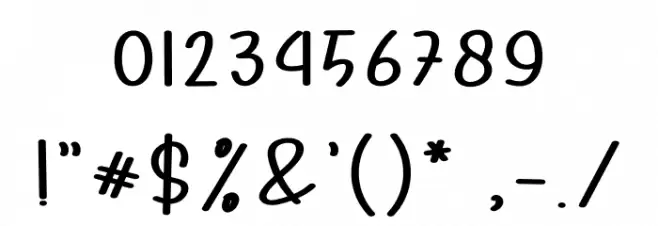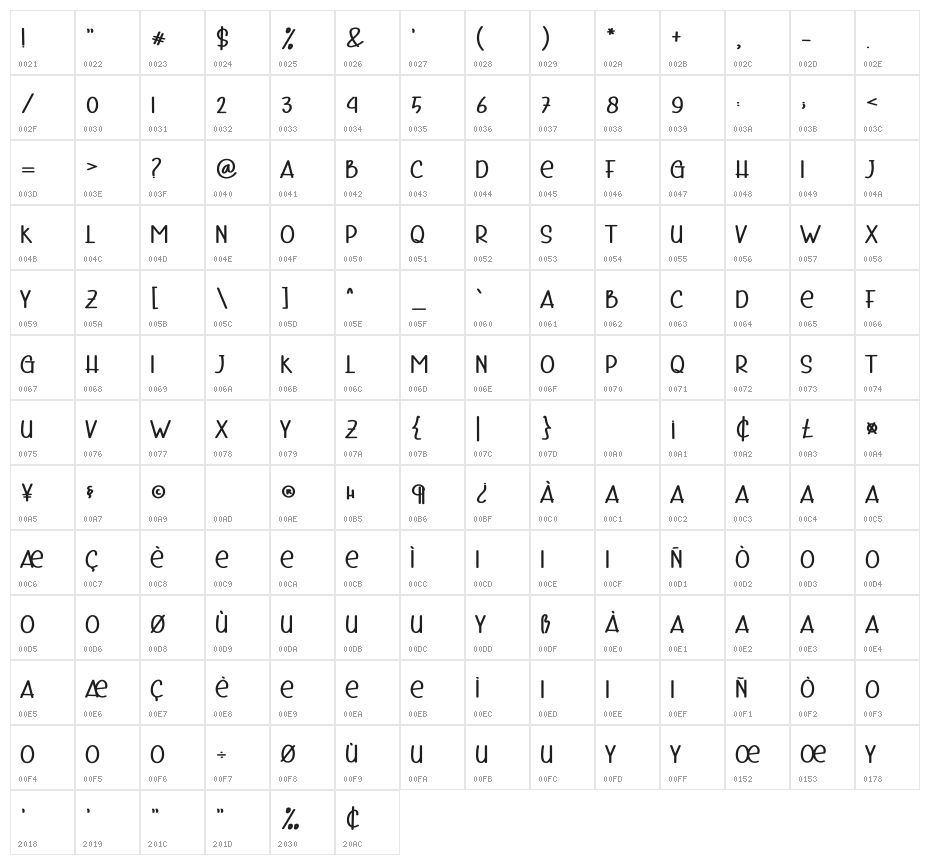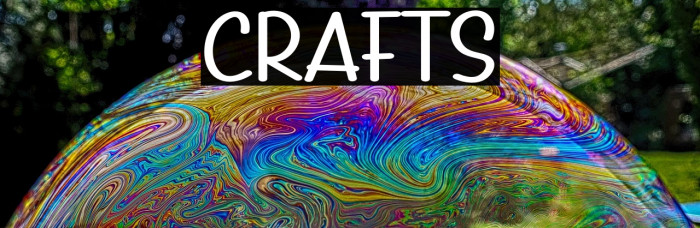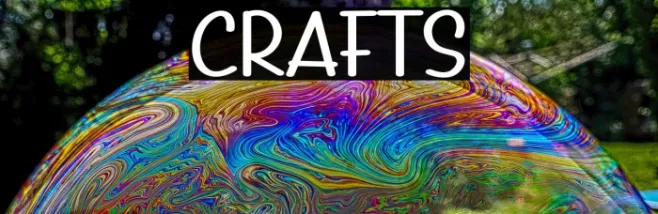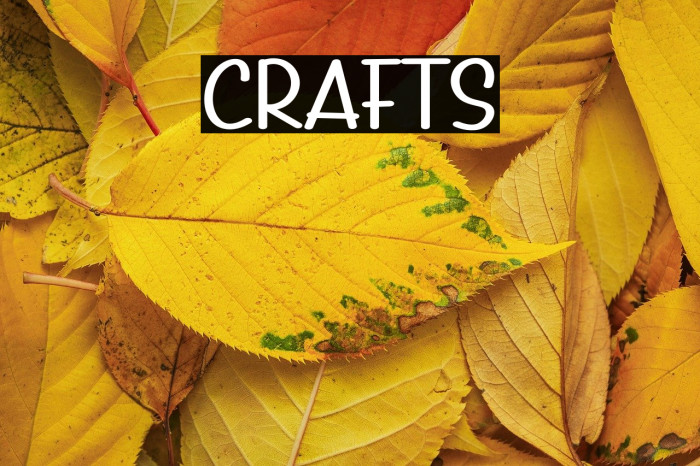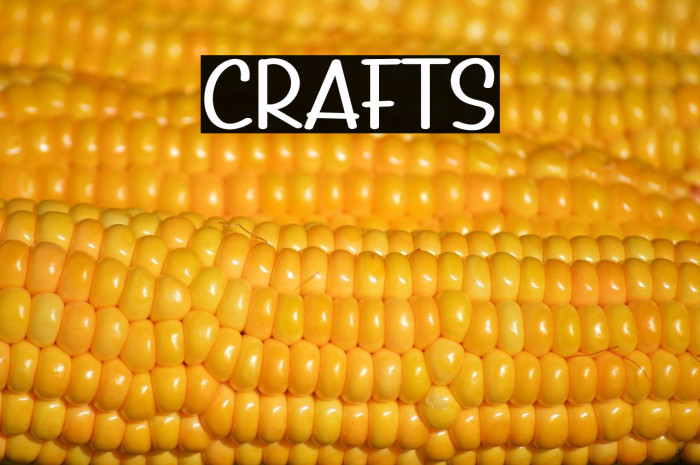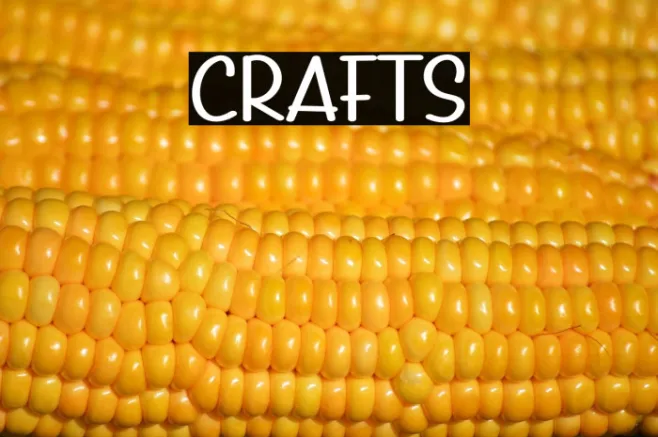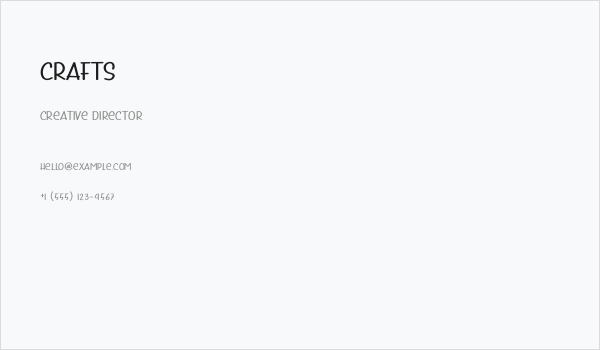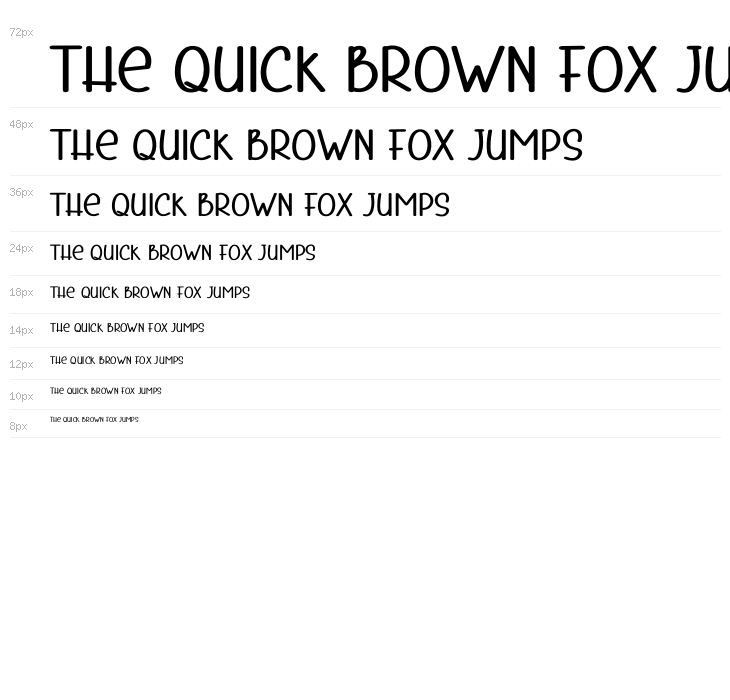
Crafts Font
Crafts Description
This font features a playful and casual handwritten style, characterized by its rounded edges and slightly irregular strokes, giving it a friendly and approachable appearance. The letters are evenly spaced, with a consistent weight that maintains readability across different sizes. Its informal nature makes it suitable for creative projects that require a personal touch. The numerals and special characters are designed to match the overall style, ensuring a cohesive look throughout any text. This font is versatile, making it ideal for a variety of applications where a relaxed and inviting tone is desired.
A playful, handwritten font with rounded edges and a casual style.
- Proposed Projects: Ideal for greeting cards, children's books, casual branding, and social media graphics.
- Category: Handwritten
- Overall Style: Casual, Playful
- Use Case: Headlines, Informal text, Creative projects